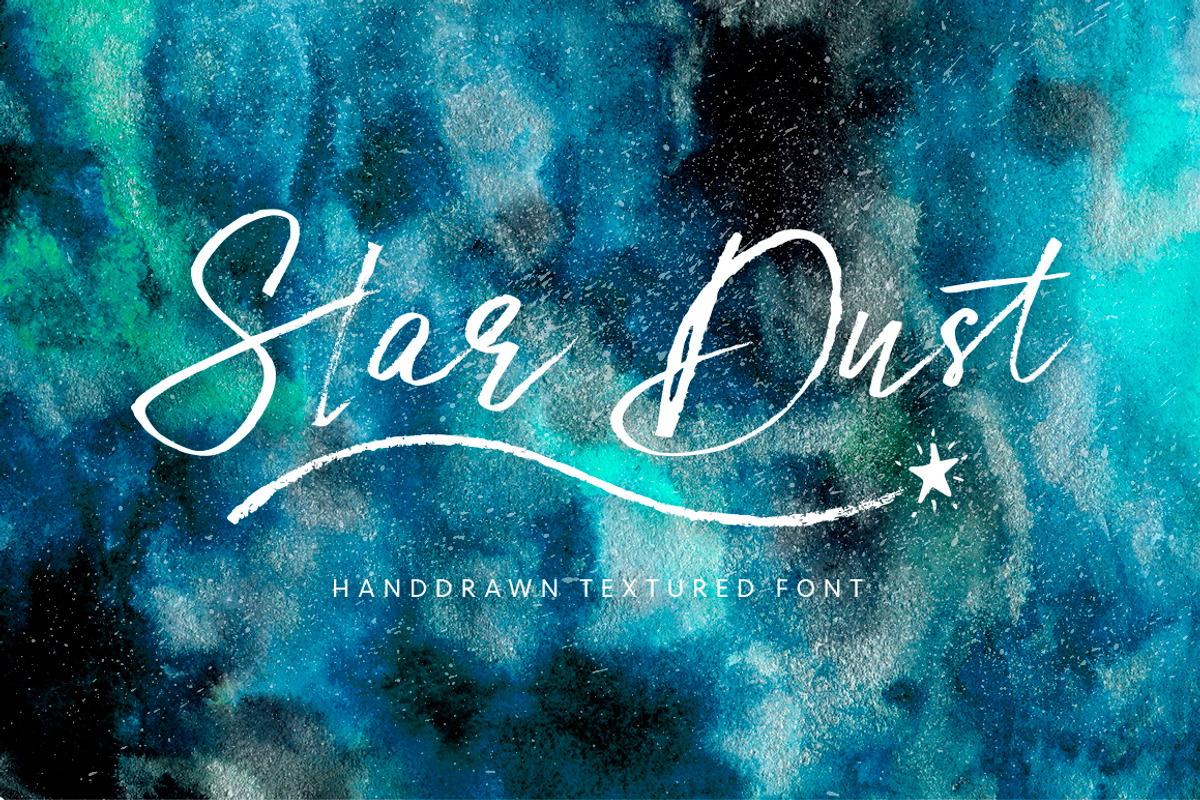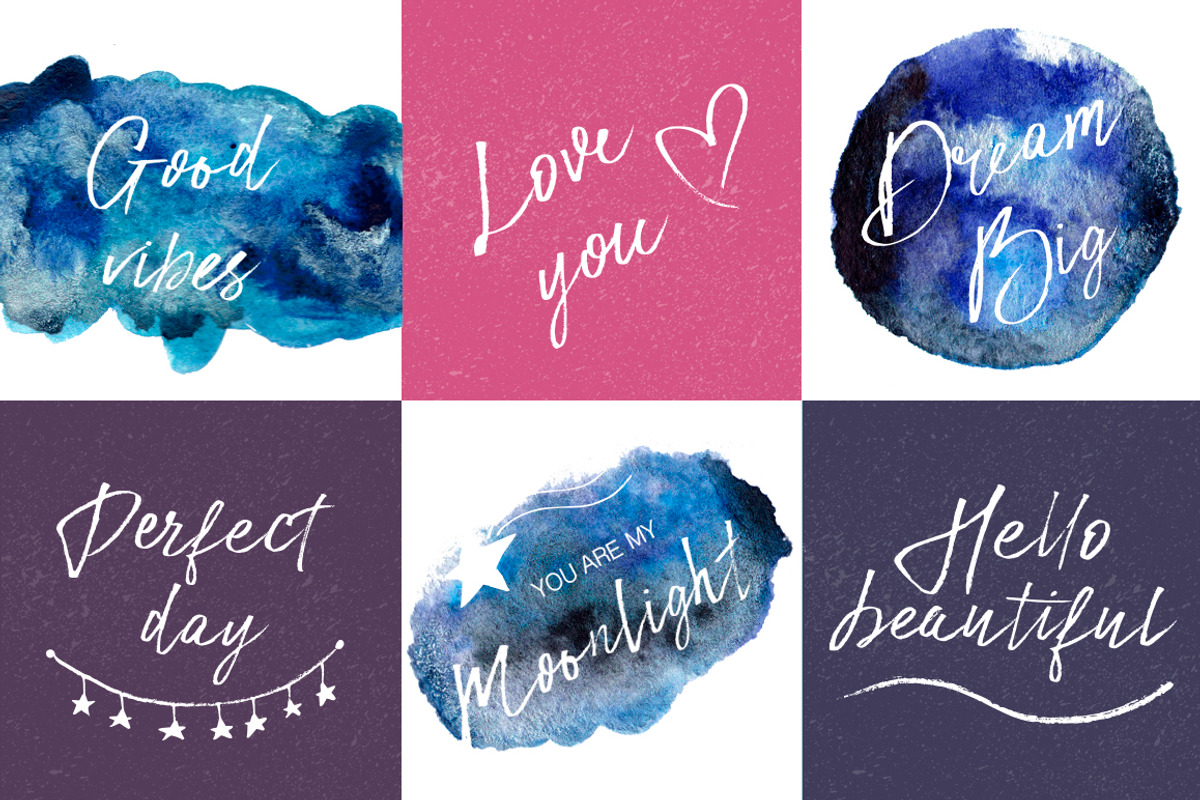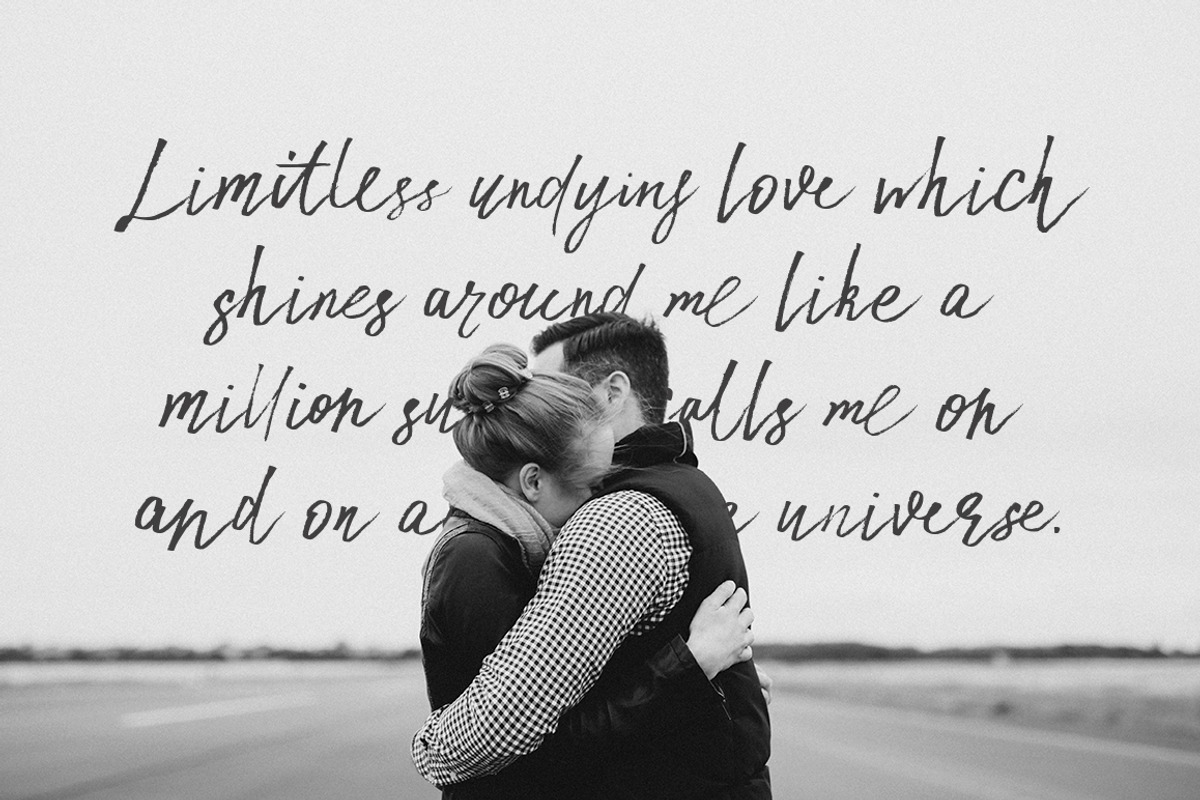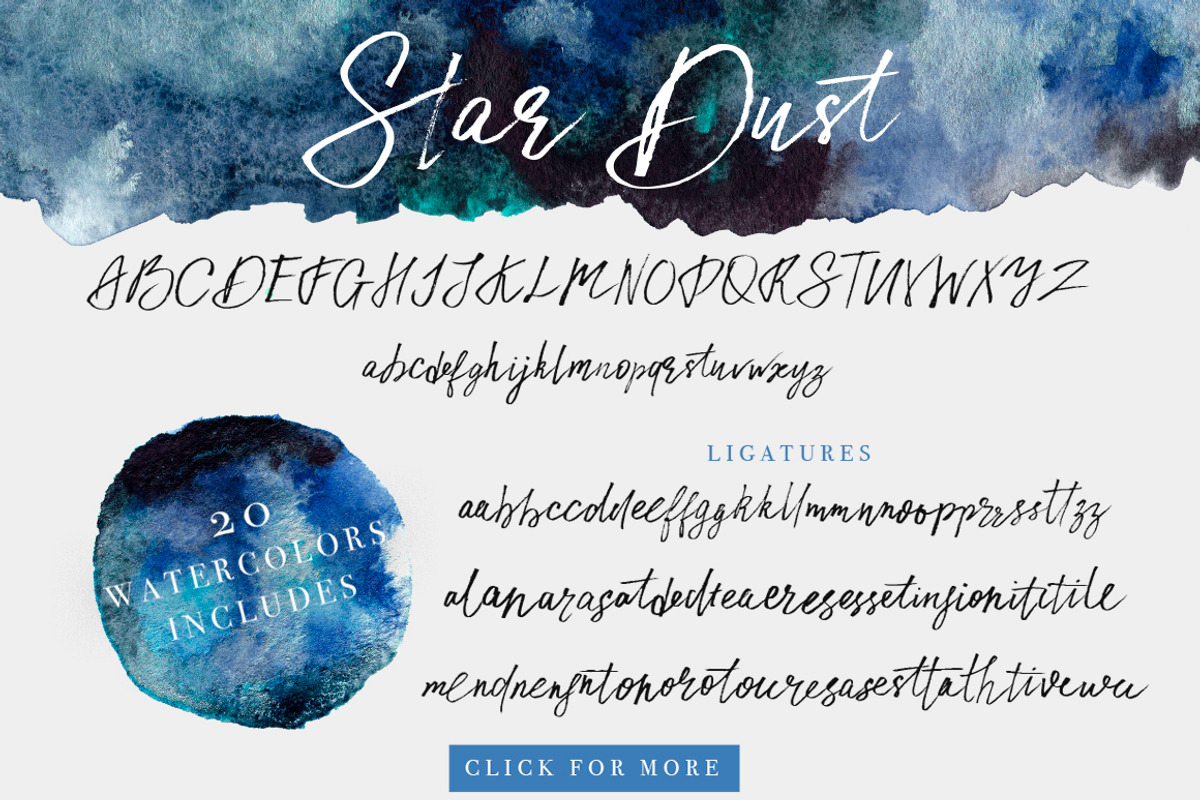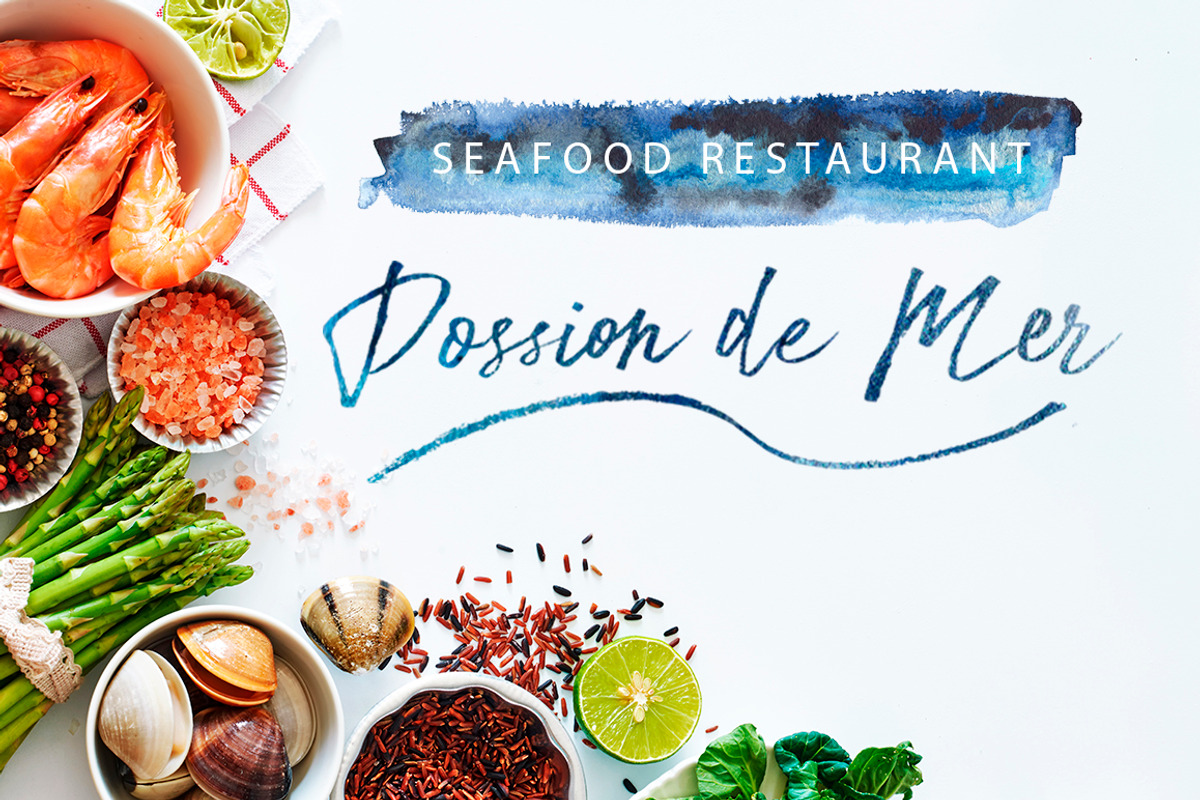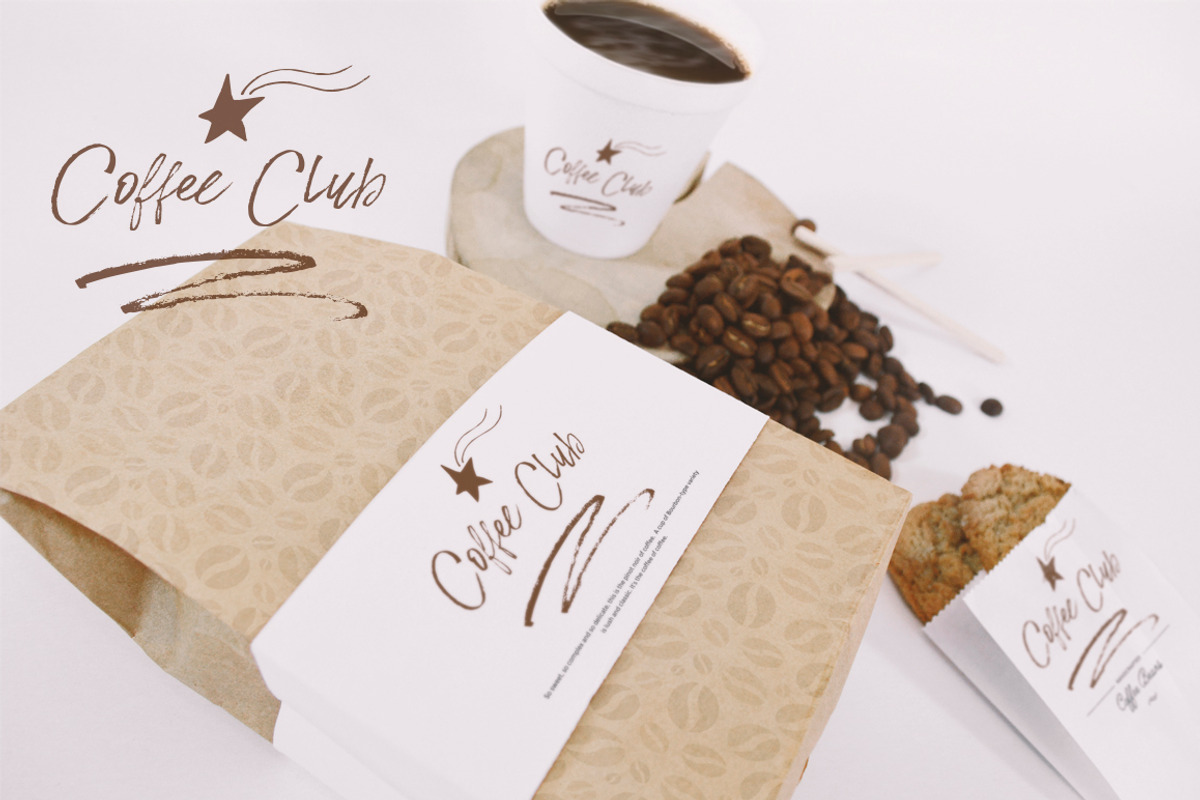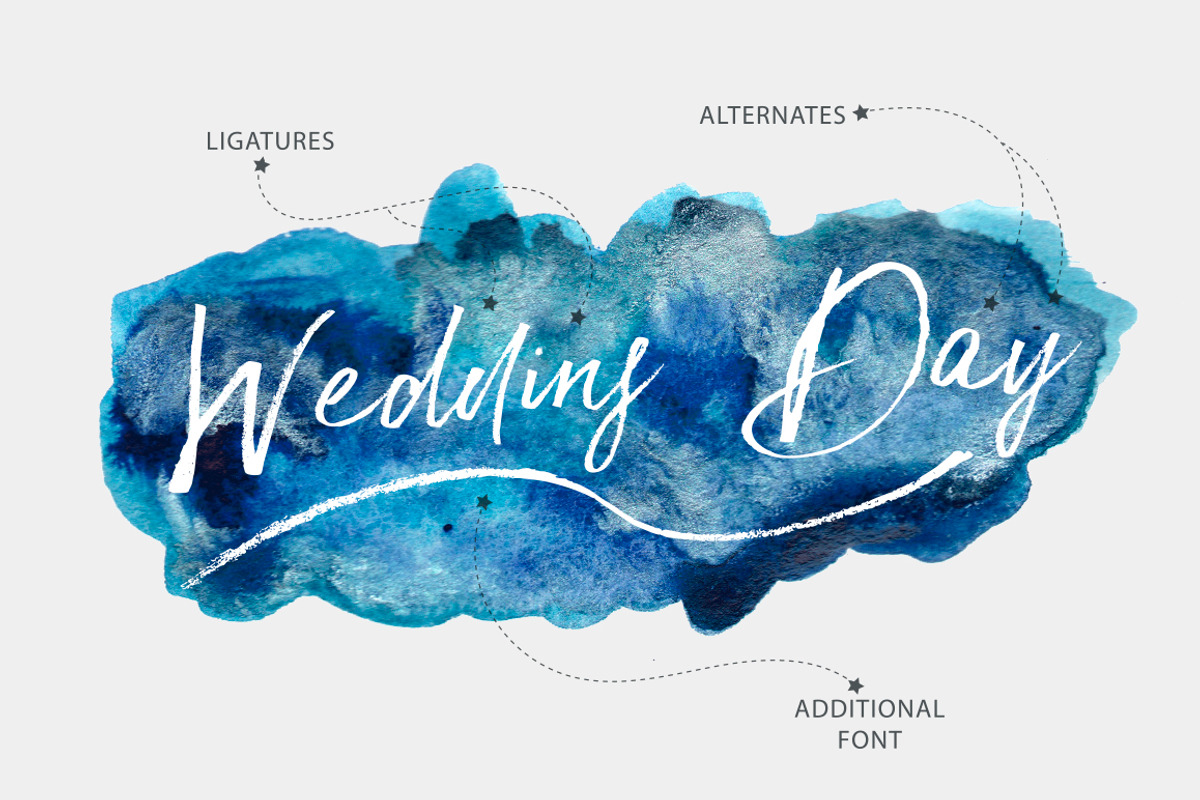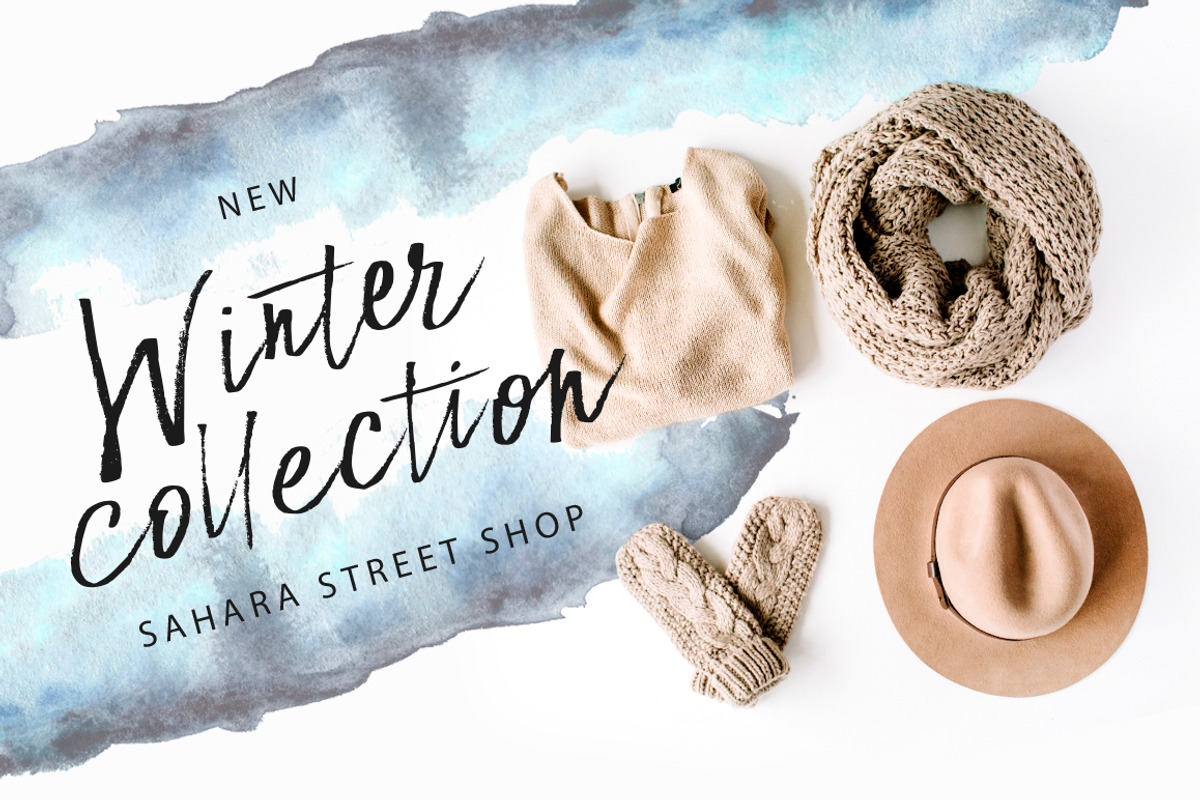
Star Dust Font & watercolor textures
Star Dust is a beautiful script font with handdrawn texture, lots of ligatures and alternative symbols for the whole alphabet. You will also receive an additional font – Stardust doodle. It comes with 26 swashes and ornaments for letters from A to Z.
That's not all :) Bonus - 20 beautiful watercolor handdrawn textures. Everything is in high resolution and 300ppi, in two formats JPG and PNG on a transparent background. These textures have the color of the night sky. The glitter, which they include, imitate stars and stardust to make your designs unusual and slightly magical.